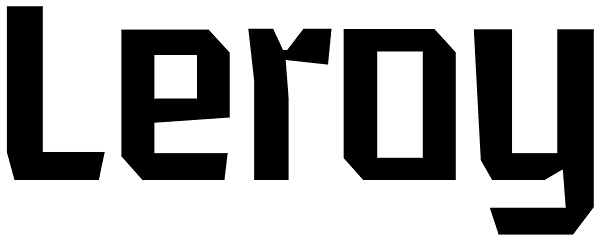
Leroy
Leroy is a font family of 5 members designed from geometrizing Roman and Gothic skeletons. Its purpose is to provide optimal reading of titles and paragraphs with strong mechanical flavor. Because of this, its variables are designed to sort...